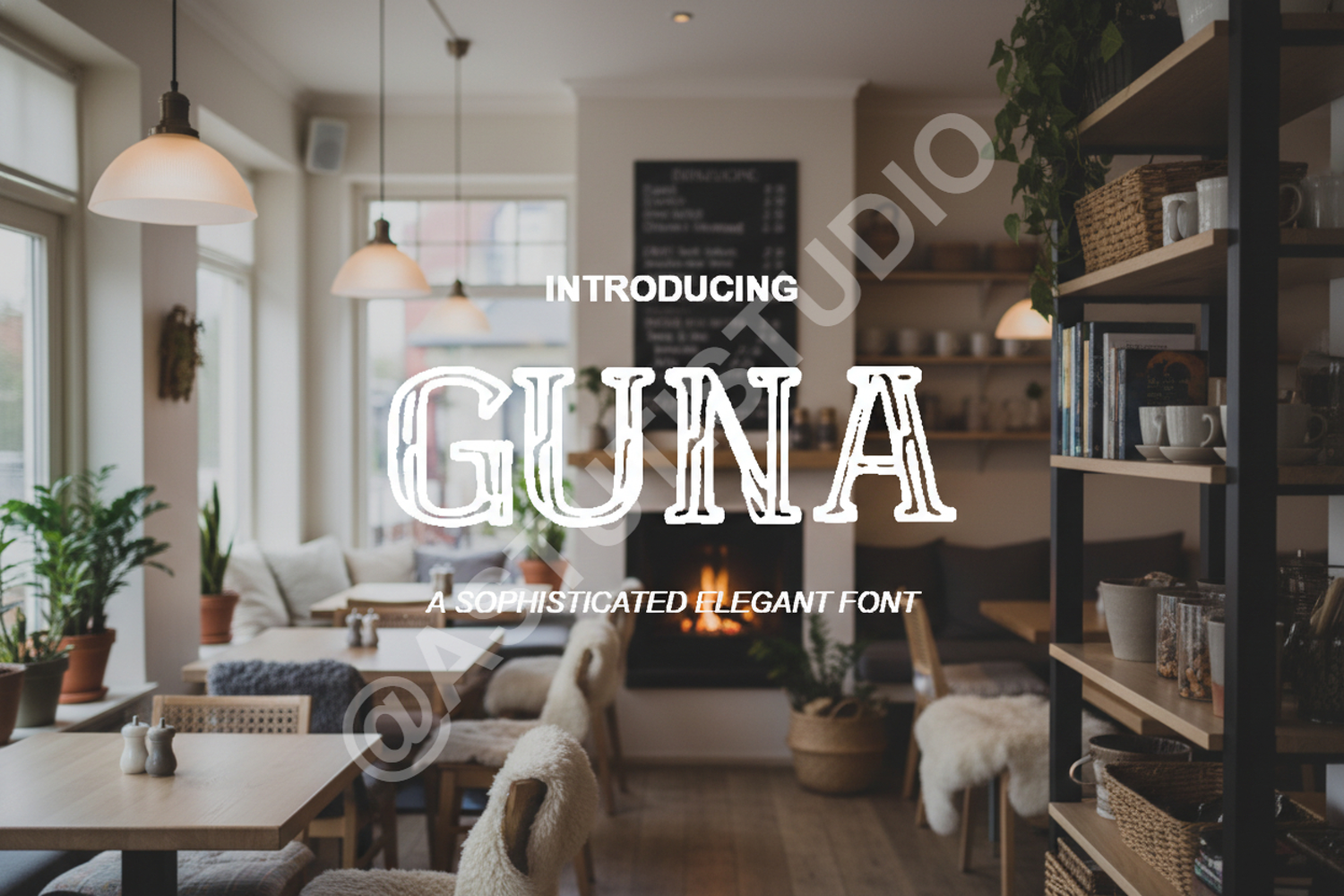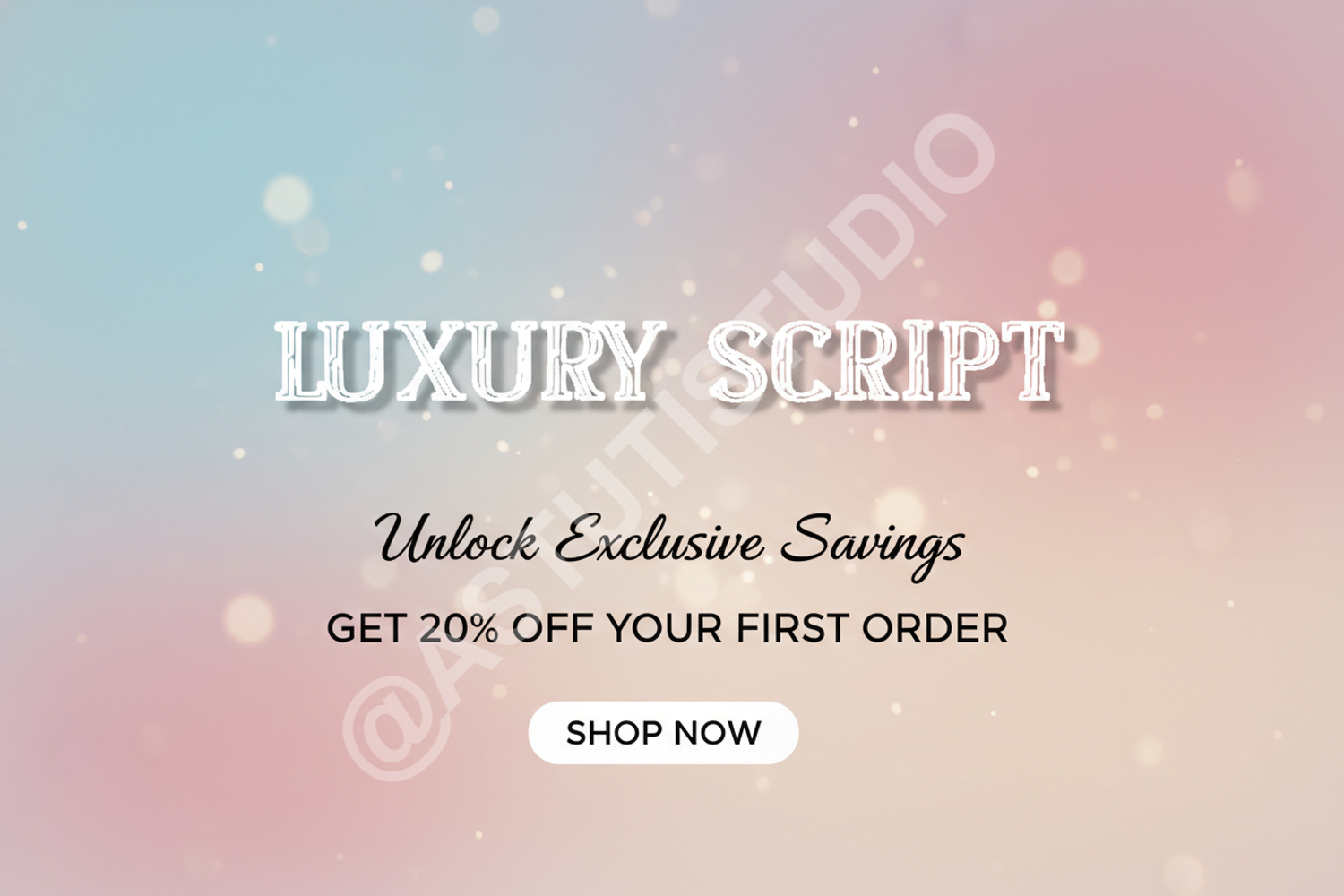
Guna - Modern Minimalist Sans Serif Font
Guna
Guna is a premium sans serif typeface meticulously crafted to bring a sense of modern elegance and clarity to your creative projects. With its clean lines, balanced proportions, and minimalist aesthetic, Guna offers a sophisticated look that remains timeless. Whether you are designing for a high-end fashion brand or a tech startup, this font provides the professional edge your work deserves.
- Branding and Visual Identity: Create memorable logos and brand guidelines.
- Editorial Design: Perfect for magazine layouts, headers, and body text.
- Digital Marketing: Elevate your social media graphics and ad banners.
- Web Design: Ensure readability and a clean UI/UX experience.
- Minimalist Packaging: Ideal for luxury goods and contemporary product labels.